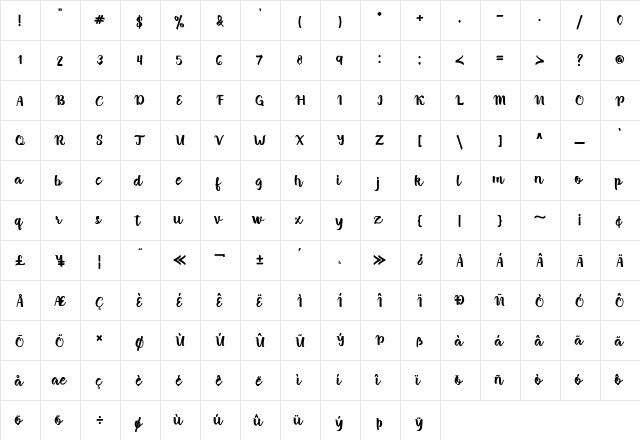
Brush Stroke Regular
| Foundry | Hanif Syahputra |
| Designer | Hanif Syahputra |
Design Context for Brush Stroke Typeface
Brush Stroke flows with the natural rhythm of handwritten lettering, making it ideal for designs that call for warmth and personal expression.